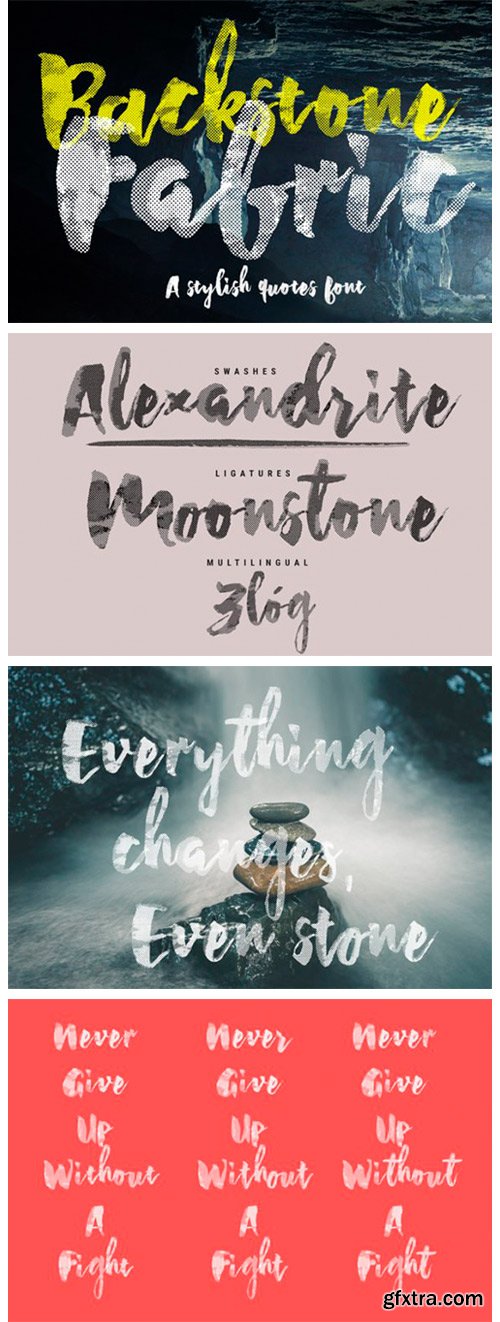
Backstone Fabric Font
Backstone Fabric is a cool, bold and thick lettered display font. It works incredibly well when employed on posters, logos, print or apparel creations.